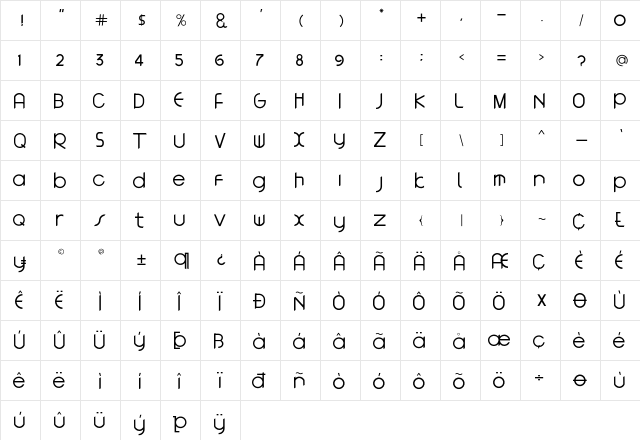
Auto Logo Regular
Design Context for Auto Logo Typeface
Auto Logo offers clean, dependable letterforms without strong stylistic allegiance, making it a practical choice for designers who need flexibility.